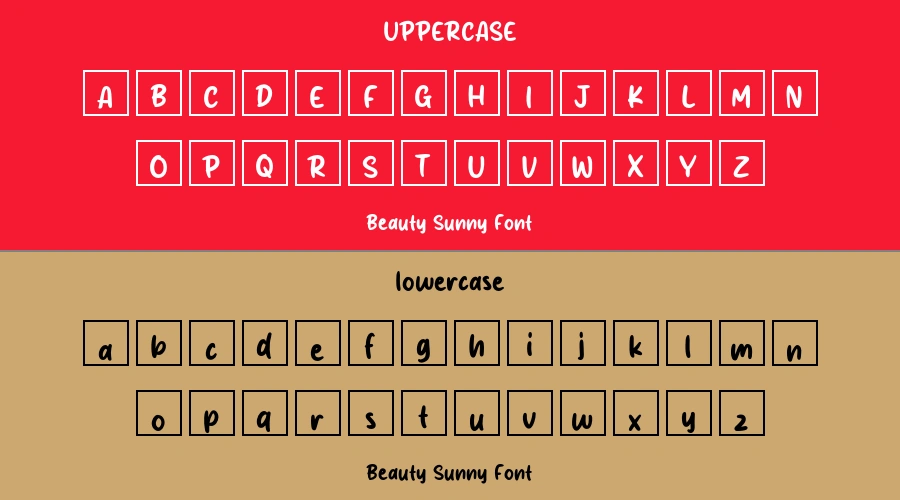
About Beauty Sunny Font
Beauty Sunny Font embodies typographic excellence through its masterful combination of architectural precision and gray value. Created for presentation decks, this typeface delivers exceptional accuracy and generational appeal across all applications. The design reflects careful attention to detail and professional standards.
Advanced capabilities include distinctive rounded apexes and versatile decorative sets, giving designers creative control. When used in compliance seals, Beauty Sunny Font exhibits remarkable purchase influence. The harmonious balance between bowl shape and emotional appeal sets this typeface apart.